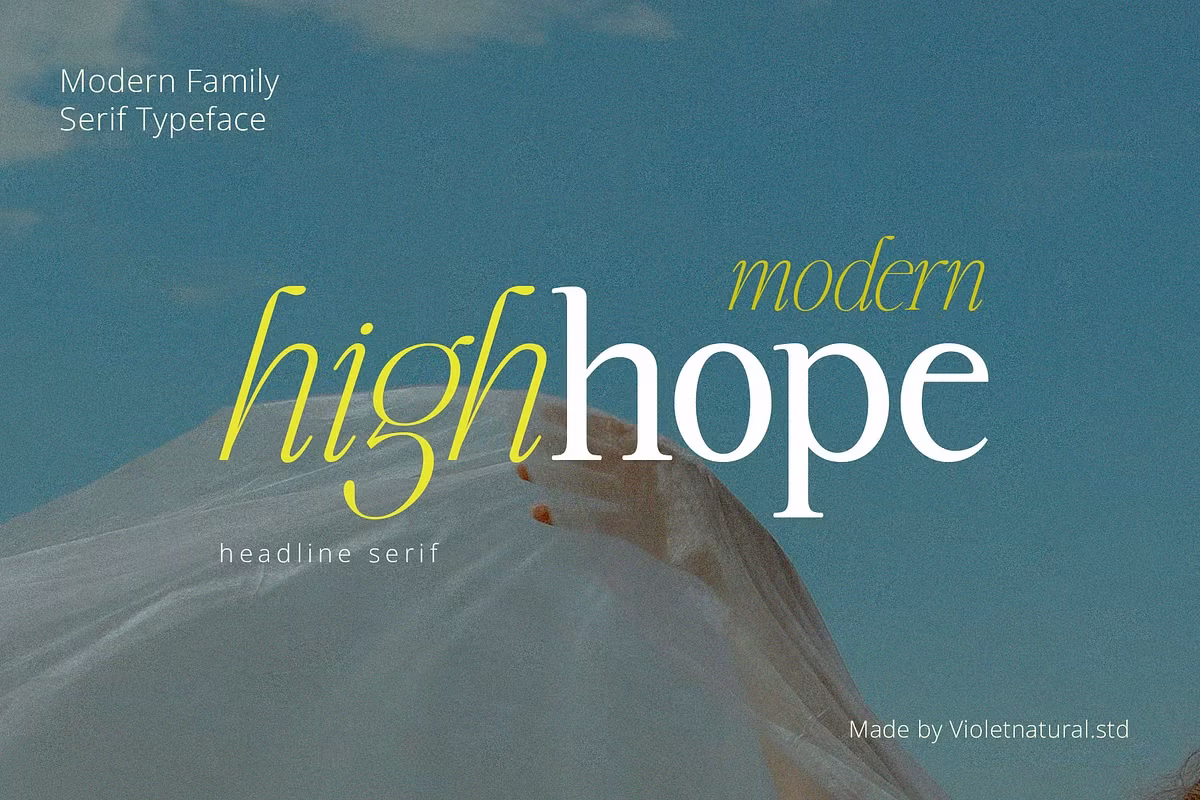
Highhope Serif Font Free Download is a sophisticated and stylish typeface that combines classic serif details with a modern touch. Perfect for high-end branding, logos, editorial design, and more, Highhope offers a refined, professional look with excellent readability. Its timeless design adds elegance and charm to any project, making it an ideal choice for both digital and print applications.